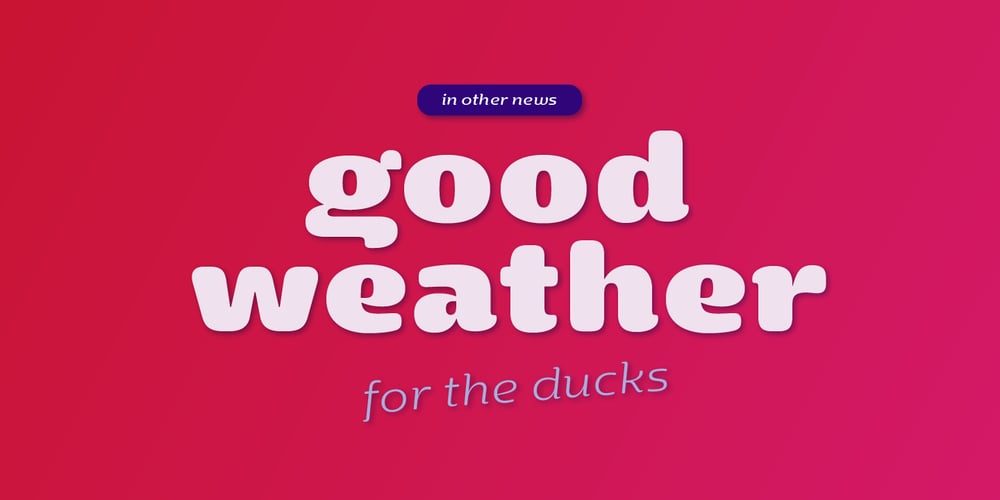
Yotin
Yotin font
Yotin Font Family was designed by Kawisara Vacharaprucks and published by Stawix. Yotin contains 18 styles and family package options. Yotin is a contemporary half-serif inspired by summer days vibe. Vibrant, round with a little bit of contrast makes the design of Yotin unique, friendly and flexible at the same time, suitable for text, headlines, display and other design needs such as layouts, branding and anything in between. Yotin is here to serve your creativities. Yotin comes in 9 weights from Thin to Black, each equipped with Italic plus many OpenType features; tabular numerals, inferiors & superiors, numerators & denominators, fractions, ligatures etc.